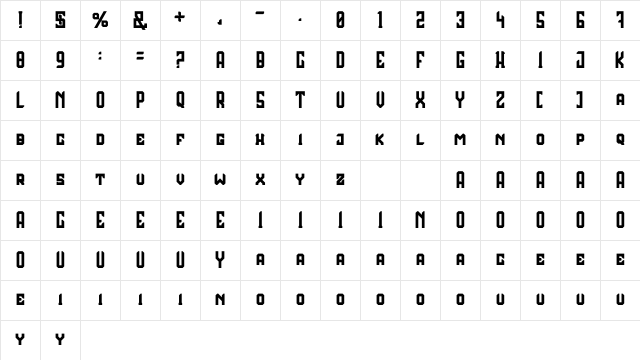
Theroar is a composed and adaptable typeface that performs quietly and consistently across a wide range of design contexts.
Pro Tip: Use Theroar in both headline and body roles to test its range before committing to a single application.